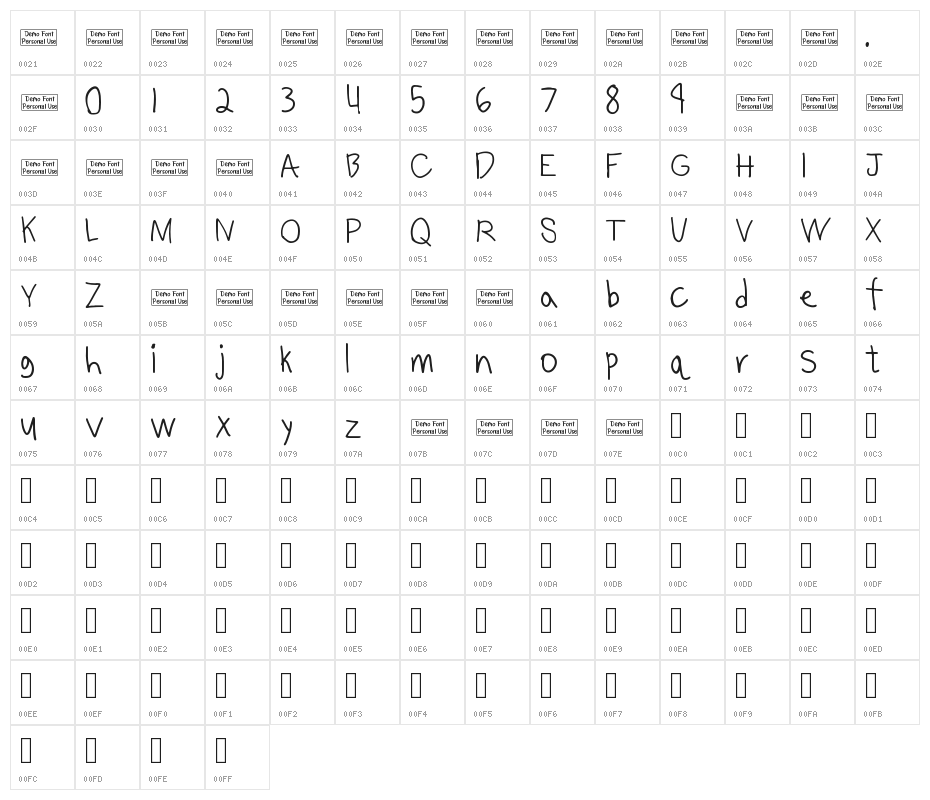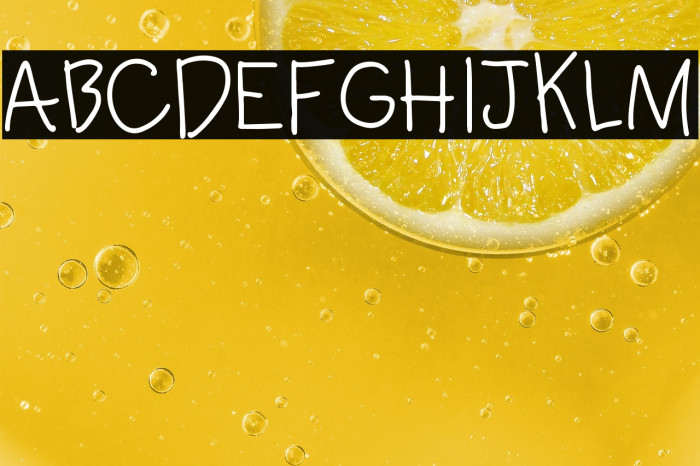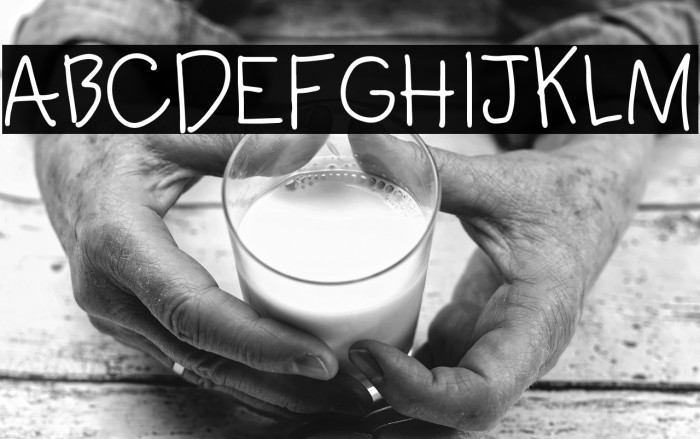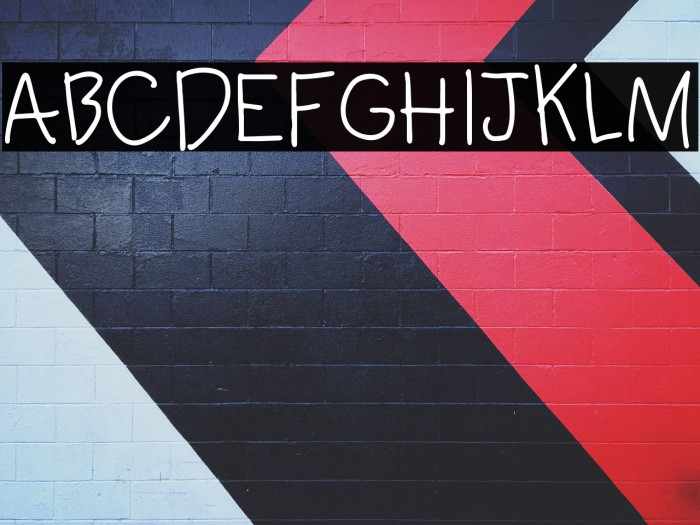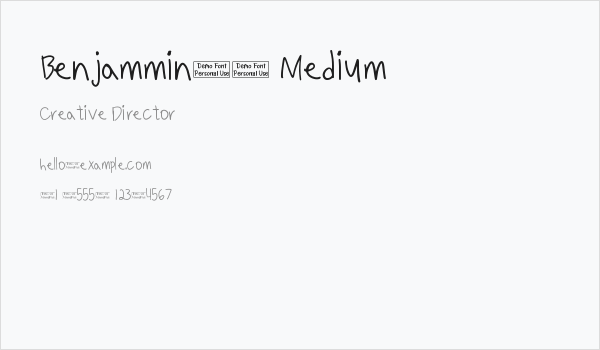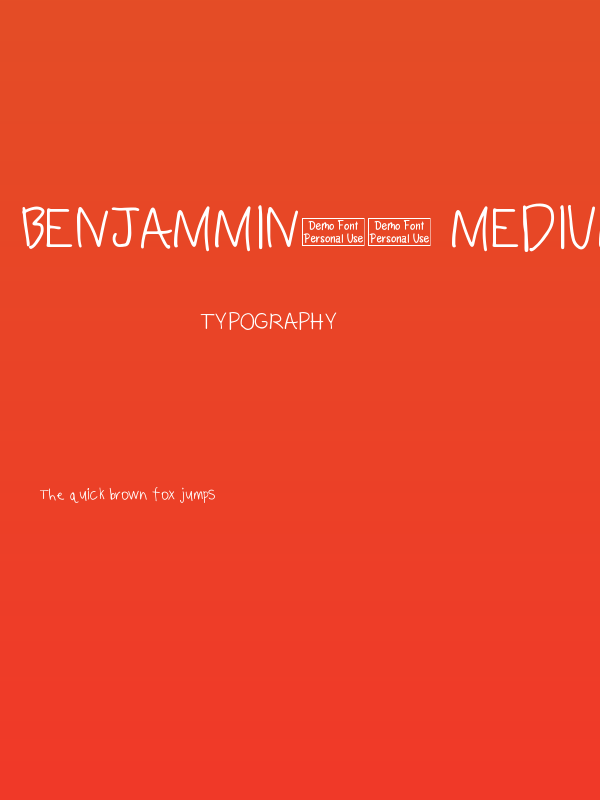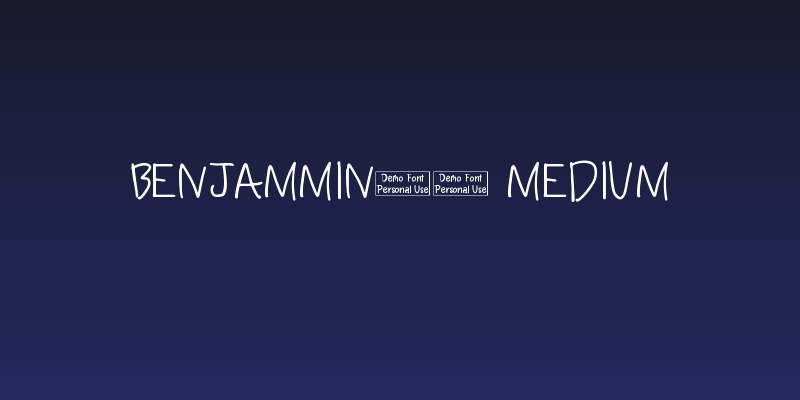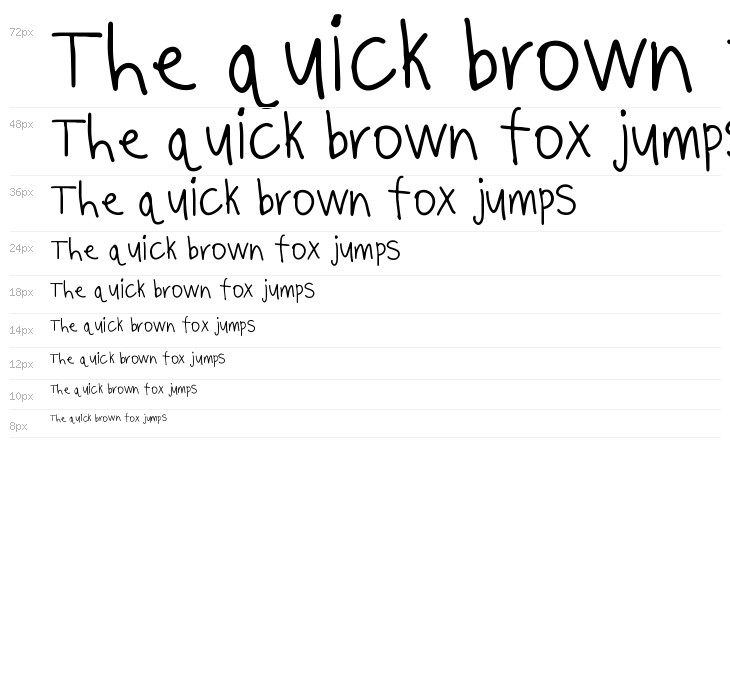
Benjammin' Medium Font
Benjammin' Medium Description
A playful, handwritten font with a casual and informal style, featuring irregular strokes and a friendly appearance.
| Proposed Projects | Greeting cards, children's books, casual invitations. |